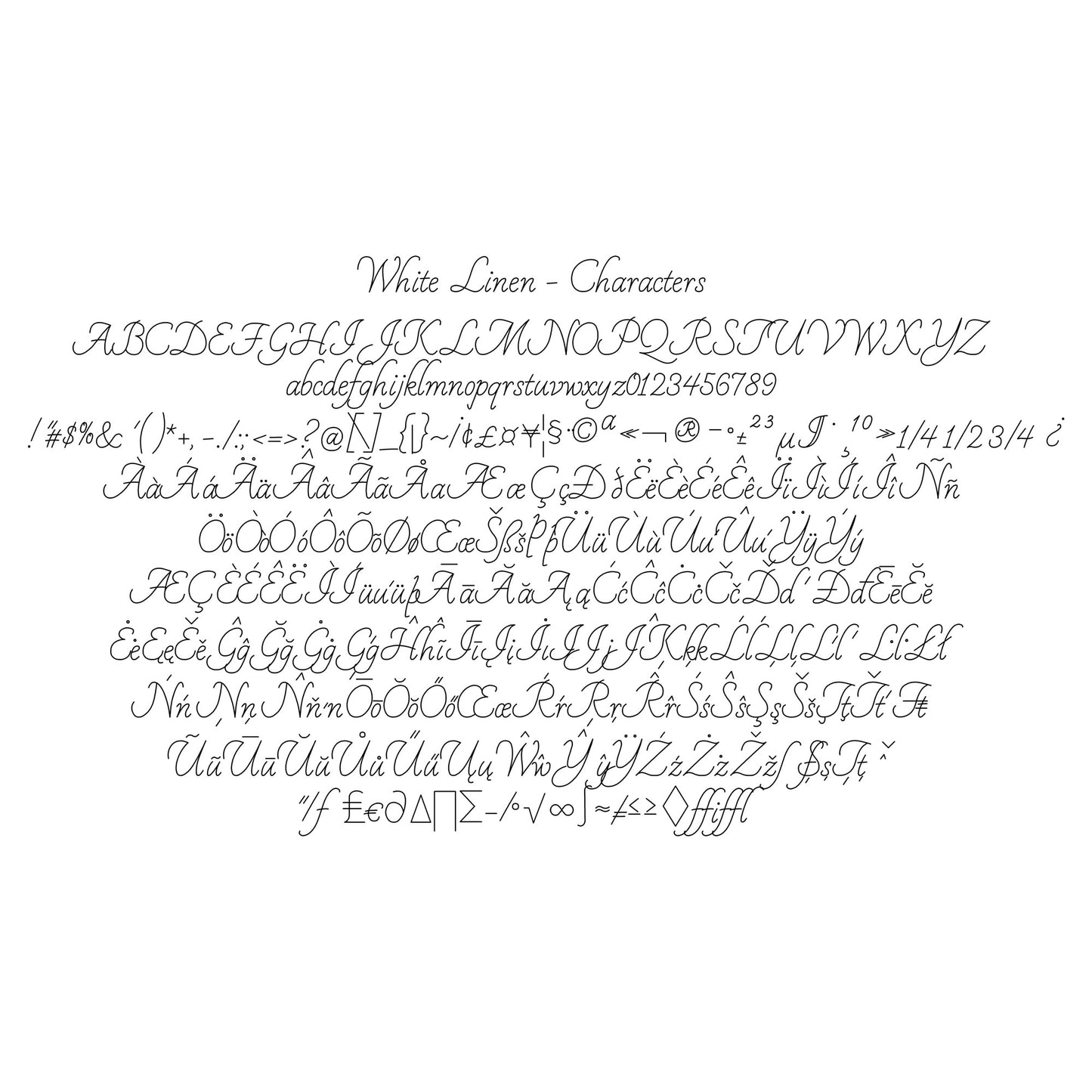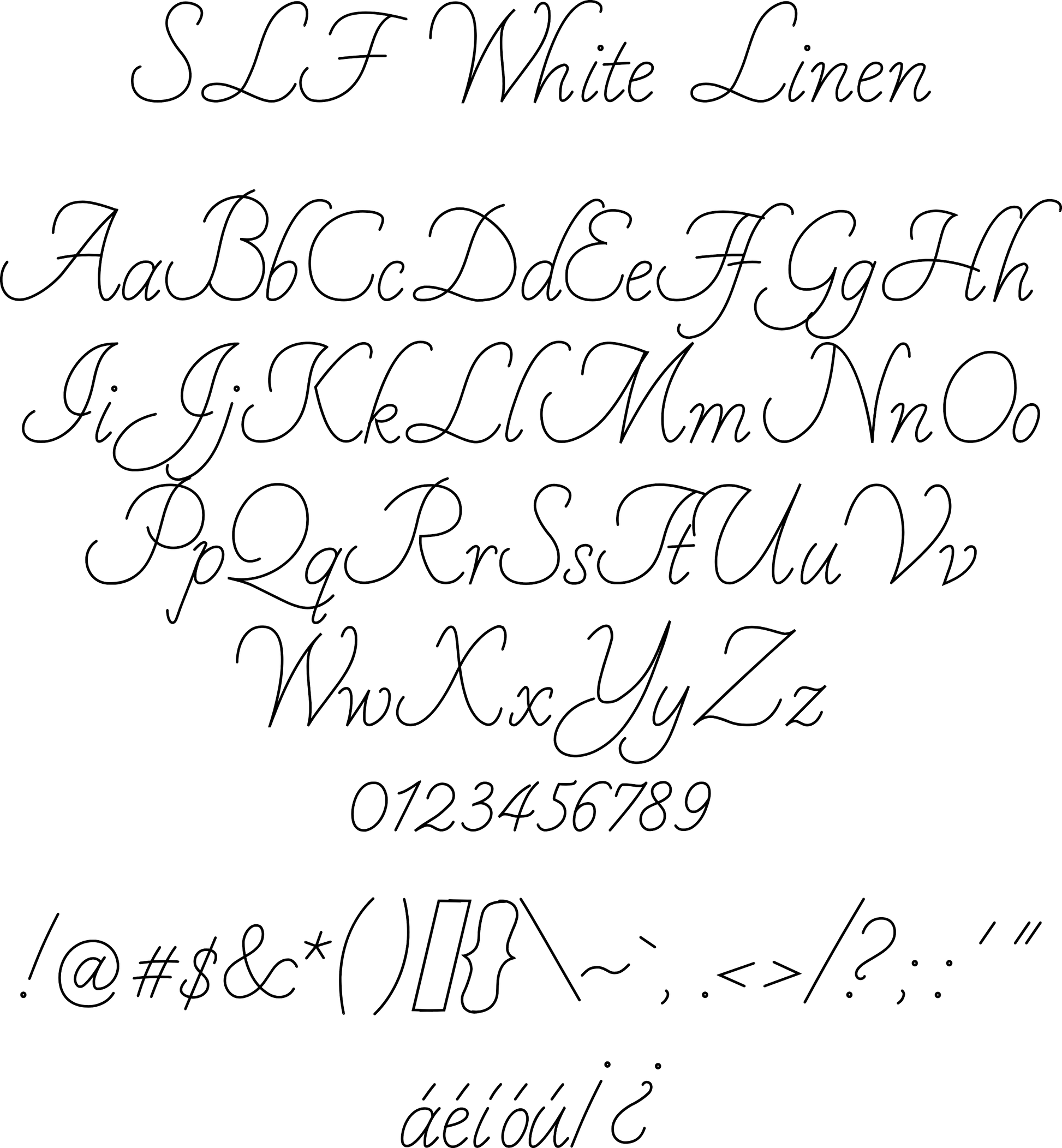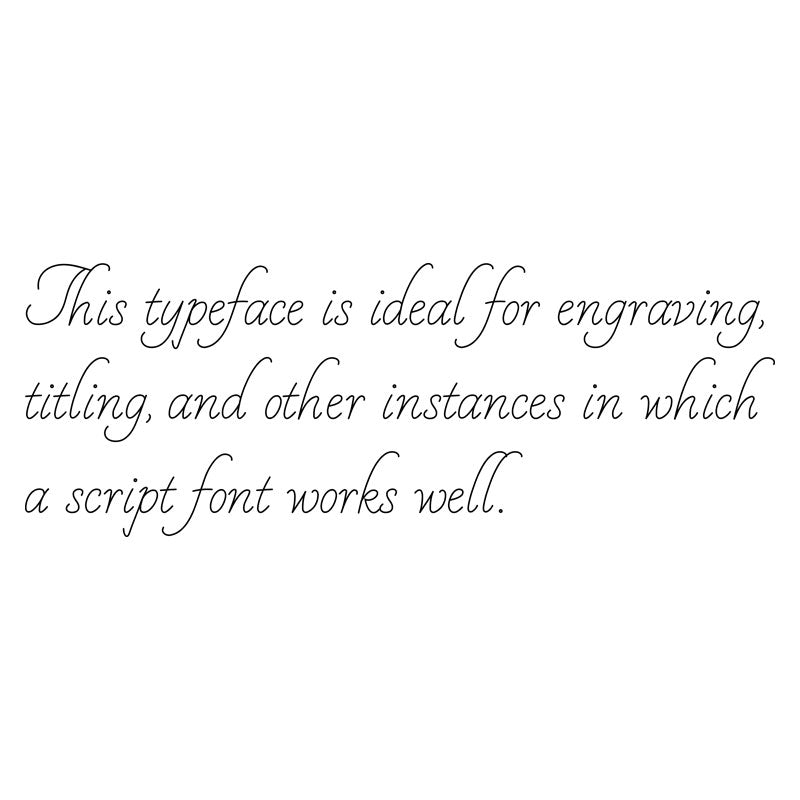
Rhino Single Line Engraving Font - White Linen
White Linen
A flowing script with elongated lettering.
- Sans serif lettering style
- Clean lines, smooth curves, close join points, and precise lettering alignment